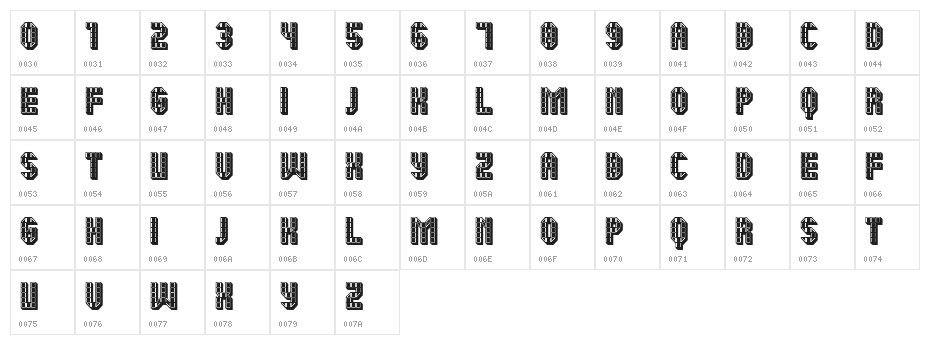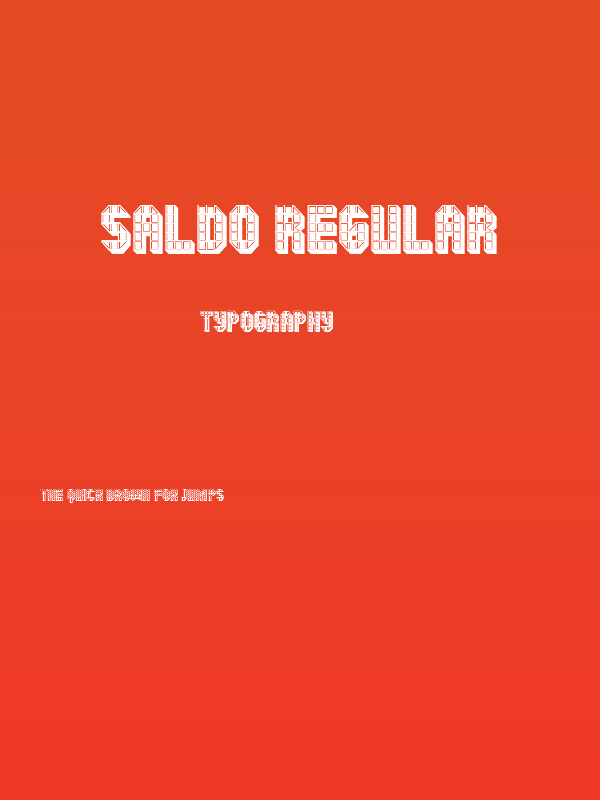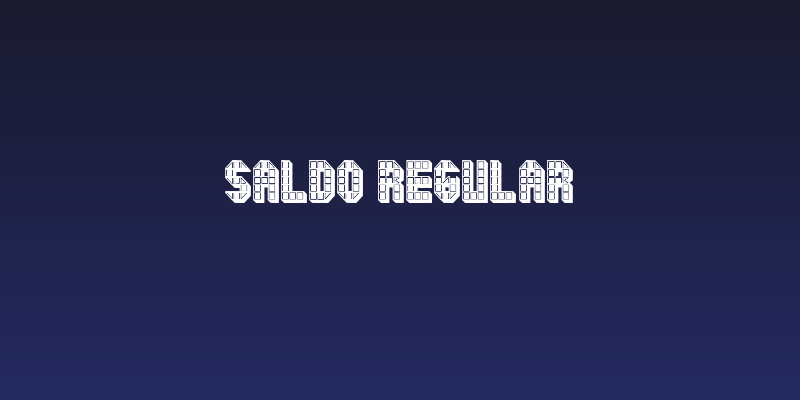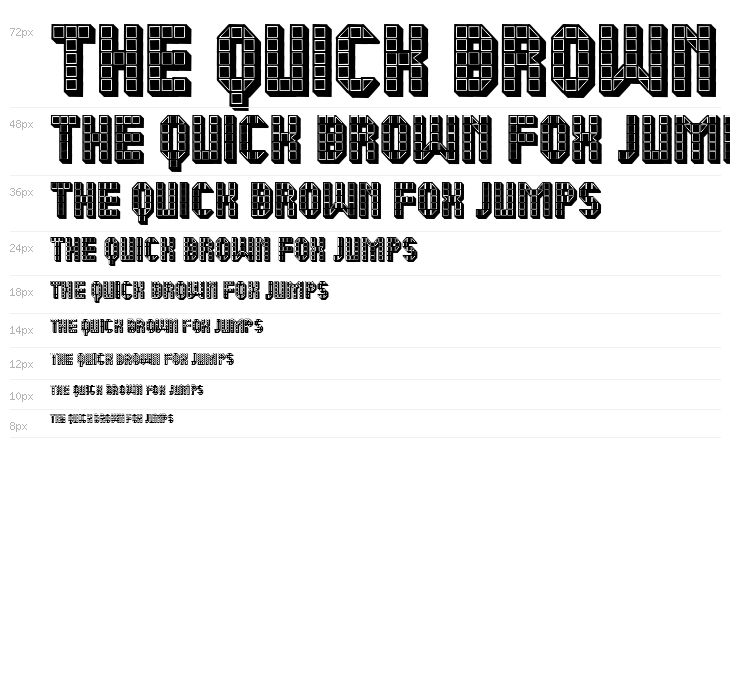
Saldo Regular Font
Saldo Regular Description
This font features a bold, geometric design with a distinct blocky appearance. Each character is constructed with a grid-like pattern, giving it a three-dimensional effect. The letters are uniformly structured, with sharp angles and straight lines, creating a sense of modernity and strength. The font's unique style makes it stand out, with a playful yet robust aesthetic. It is highly legible and maintains consistency across all characters, including numbers and special symbols. The design is reminiscent of digital displays or architectural elements, making it suitable for various creative applications.
| Proposed Projects | Ideal for digital art, video game titles, posters, and branding projects that require a modern and striking visual impact. |